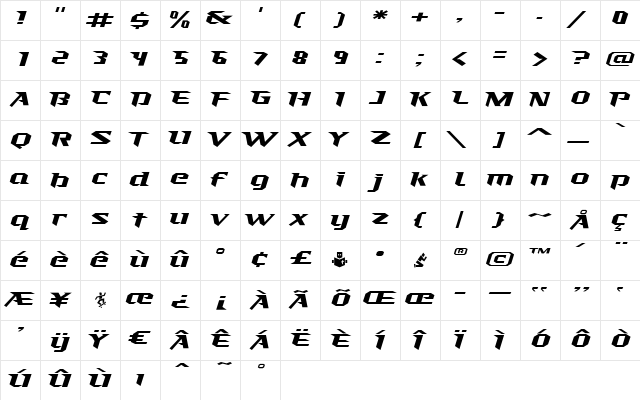
OWOArmageddonMedium Regular
Design Context for OWOArmageddonMedium Typeface
OWOArmageddonMedium is a composed and adaptable typeface that performs quietly and consistently across a wide range of design contexts.